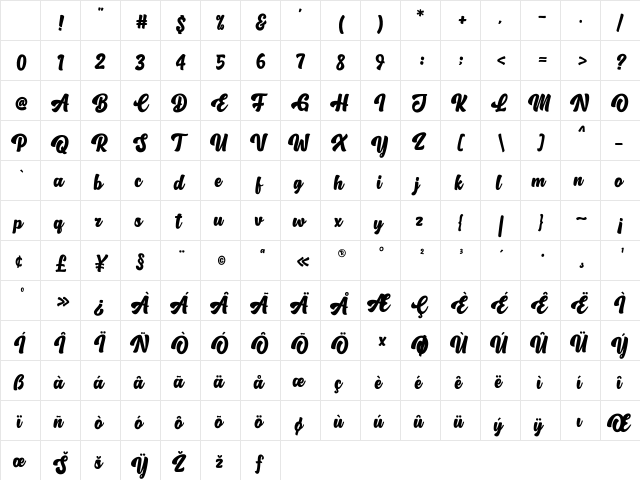
Complete Oh Chewy Regular glyph index. Displaying only characters natively supported by Oh Chewy Regular font.
Oh Chewy is a composed and adaptable typeface that performs quietly and consistently across a wide range of design contexts.